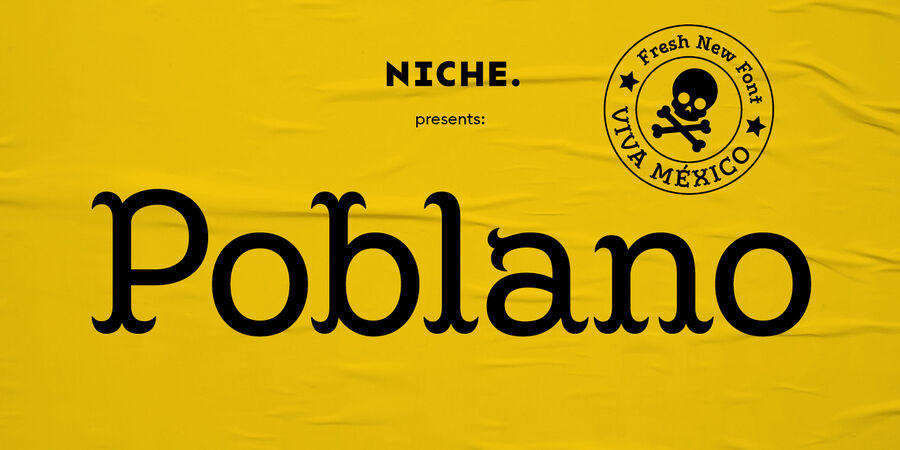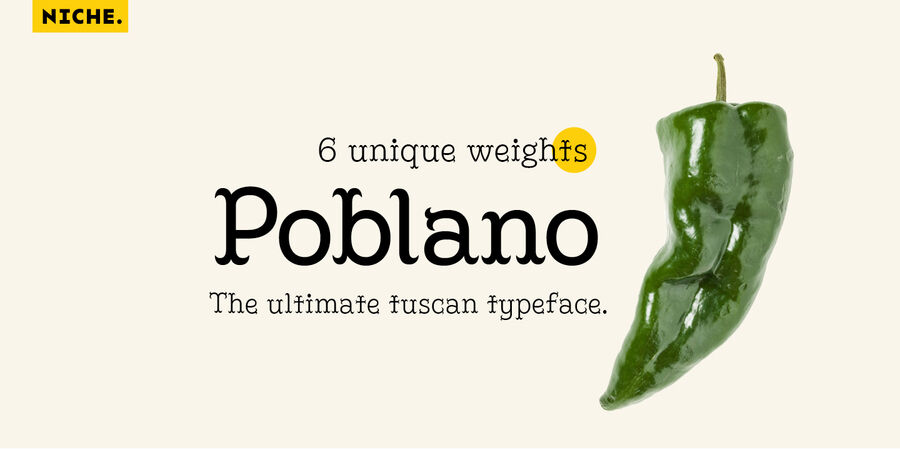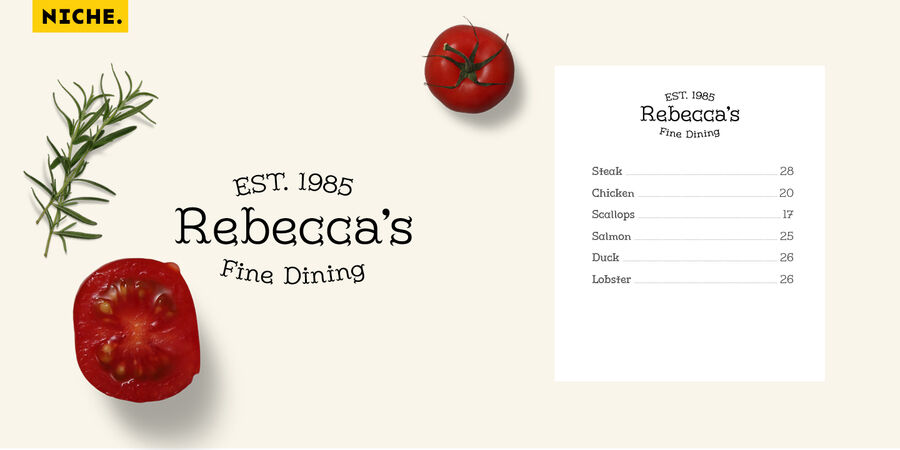
About PoblanoPoblano is a masterfully designed flared typeface, inspired by Gothic Tuscan that incorporates an aura of modern fun and classic southwest whimsy. With serifs that embody the beautiful, natural curve of the Poblano Pepper, it captures the pepper’s essence and attitude of having the perfect amount of piquant heat. Perfectly suited for menus, headlines, and logos, Poblano will be the ideal garnish to complete and elevate your food, rustic, grunge and hipster themed designs. The Poblano menu includes: a range of styles from elegantly thin to boastful black; over 400 glyphs per weight; more than 50 stylistic alternatives; upper and lowercase characters; uniquely stylized to elevate your design and add that finishing touch. This is the ultimate niche solution to both display and functional Tuscan serif fonts. The typeface was designed by Simon Dunford in 2019.